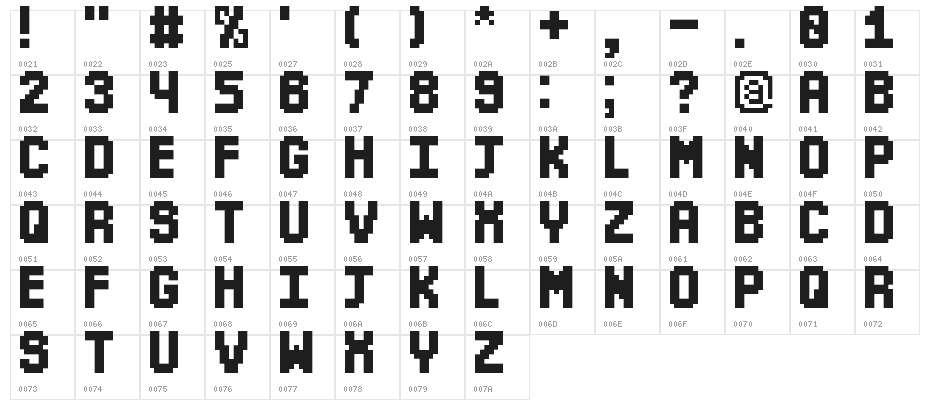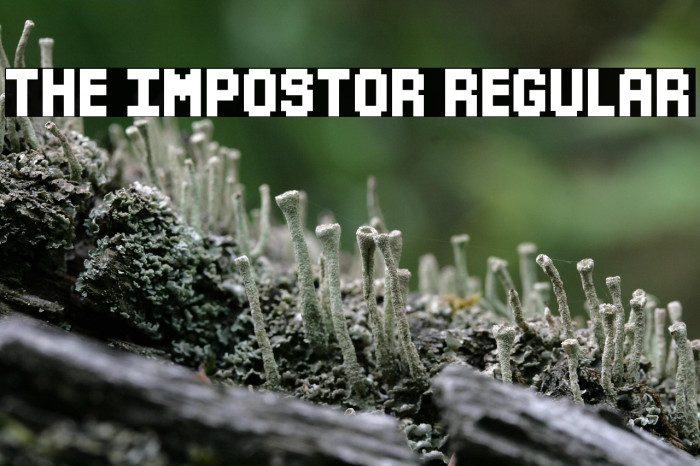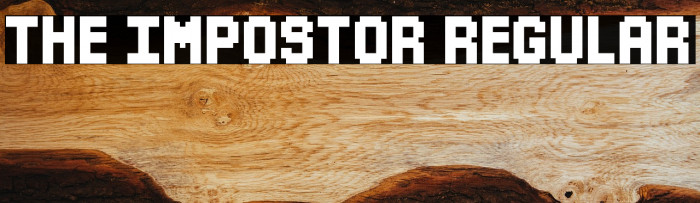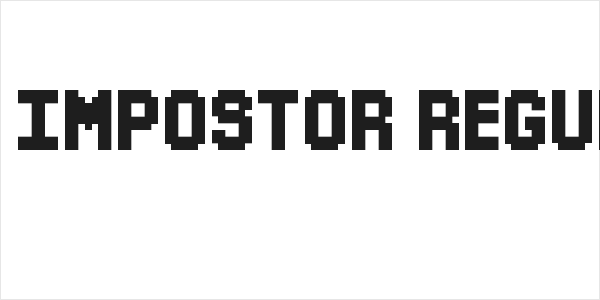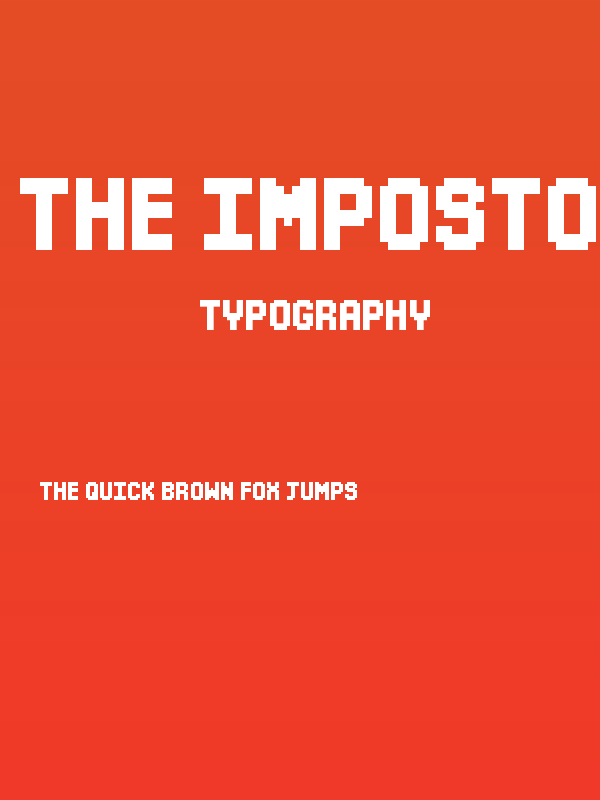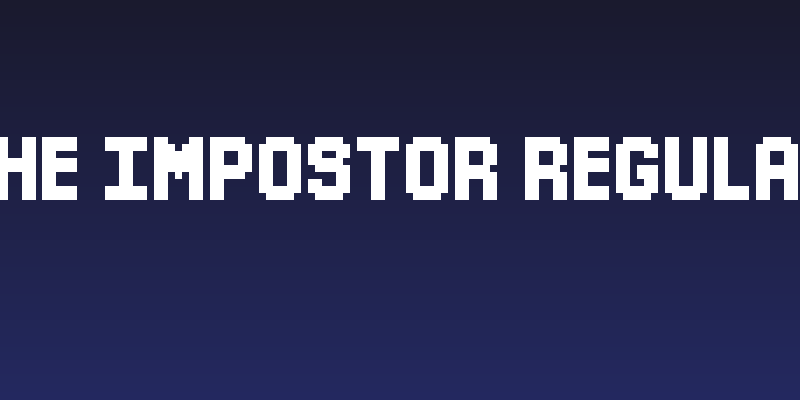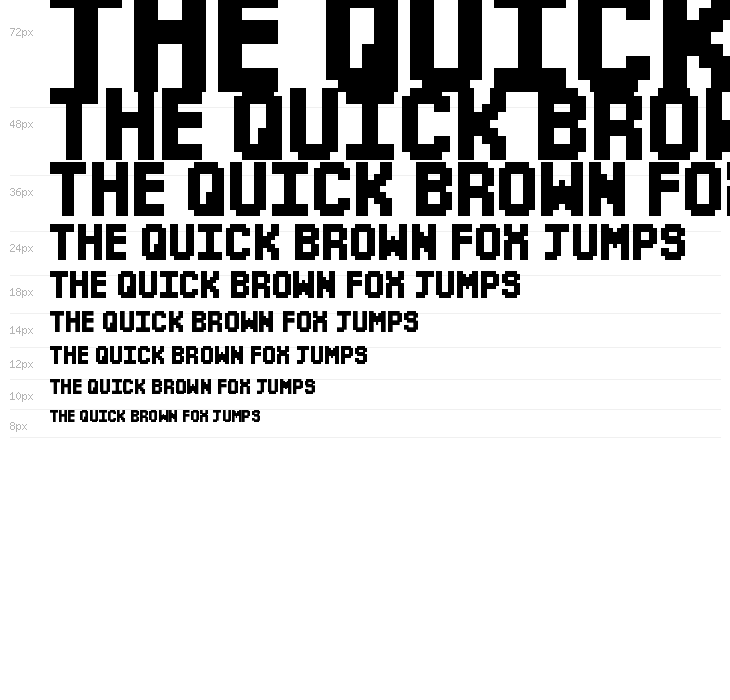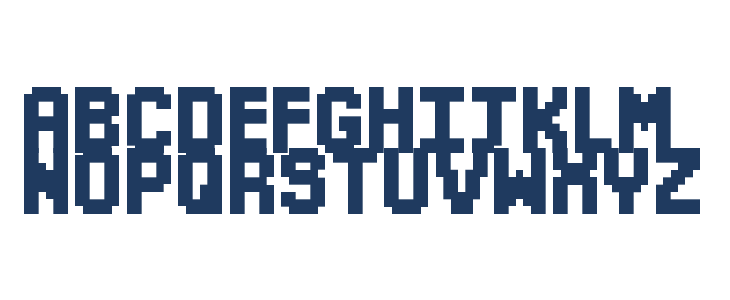
The Impostor Regular Font
The Impostor Regular Description
This font features a bold, pixelated design reminiscent of early digital and arcade aesthetics. Each character is constructed with a blocky, grid-like structure, giving it a distinctly retro and digital feel. The uniformity in stroke width across all characters contributes to a cohesive and consistent appearance. The uppercase and lowercase letters share the same height, emphasizing the geometric nature of the design. Numbers and special characters maintain the same pixelated style, ensuring visual harmony throughout. This font is ideal for projects that aim to evoke nostalgia or a digital theme.
| Overall Style | Retro |
| Proposed Projects | Perfect for video game graphics, retro-themed posters, digital art projects, and tech-related branding. |